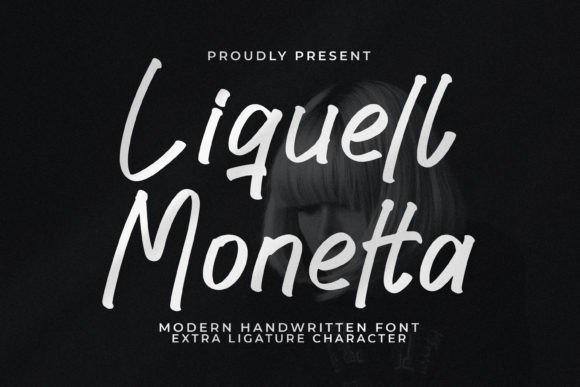
Unleash the Enchanting Appeal of Liquell Monetta: A Handwritten Font Symphony
In a world saturated with digital communication, emails have become the modern-day quill and parchment, carrying our messages across the vast expanse of the internet. As you craft these digital missives, let Liquell Monetta be your chosen instrument, a symphony of strokes that dances across the screen with grace and elegance.
Behold the beauty of this exquisite handwritten font, meticulously designed by the talented artists at integritypestudio. Liquell Monetta is a testament to the enduring allure of calligraphy, capturing the essence of timeless elegance while embracing a contemporary flair.
With Liquell Monetta as your font of choice, your emails will transcend mere words, becoming visual feasts that captivate and enchant your recipients. Its graceful curves and sweeping strokes evoke a sense of intimacy and warmth, inviting your readers to immerse themselves in your message.
Transform your emails into works of art, where each word carries the weight of emotion and the allure of a handwritten note. Liquell Monetta's versatility extends beyond email design, making it a perfect companion for invitations, greeting cards, logos, and any creative project yearning for a touch of handwritten charm.
Indulge in the artistry of Liquell Monetta, and watch as your words blossom into captivating expressions of your thoughts and emotions. Embrace the power of this extraordinary font, and elevate your communication to new heights of eloquence and grace.